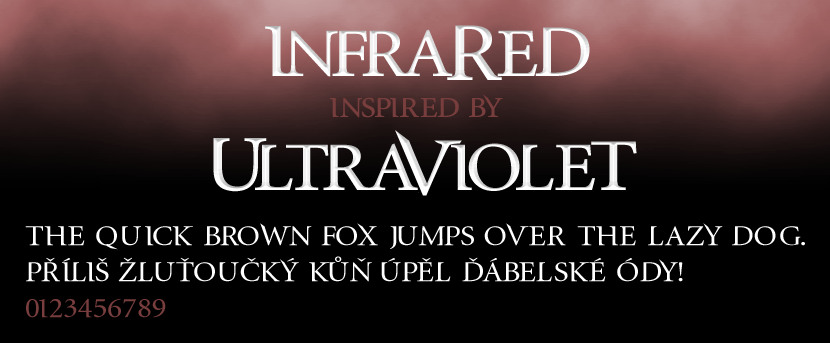
Font name: | InfraRed |
Free for non-commercial use only. To purchase a commercial license, please go to http://futuremillennium.com/fonts/license/infrared or contact me. A font inspired by Ultraviolet's movie poster font. Caps only, comes in 4 styles: Regular, Bold, ExtraBold and Black. Licensed under the Creative Commons Attribution-NonCommercial-NoDerivs 3.0 Unported License (CC BY-NC-ND 3.0) |